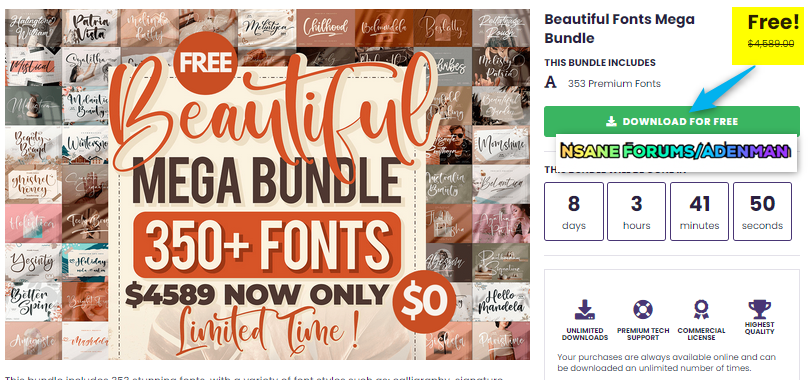
Adenman Posted April 20, 2022 Share Posted April 20, 2022 Beautiful Fonts Mega Bundle – Free Commercial License – 353 Premium Fonts by Perspectype – for Windows / Mac OS X Add perfect handwritten touches to your designs with this bundle full of beautifully designed handwritten fonts that come in a variety of hand-drawn styles from cursive to brush letter. Get Beautiful Fonts Mega Bundle with lifetime commercial license for free! Beautiful Fonts Mega Bundle is the font collection of 353 premium fonts from Perspectype that includes hundreds of glyphs including alternate, ligatures and international language support. , With a variety of styles such as calligraphy, signature, brush lettering and handwriting, you can create beautiful designs with this extensive collection of fonts that includes international language support. This bundle includes 353 stunning fonts, with a variety of font styles such as: calligraphy, signature, brush lettering, handwriting. Included are hundreds of glyphs, including alternate, ligatures, swashes, and international language support. They will be suitable for any type of crafting projects due to their varied style, characteristics and themes. All fonts are compatible with your cutting machine and include a lifetime commercial license. Giveaway link : https://www.creativefabrica.com/product/beautiful-fonts-mega-bundle/ref/3827/ https://www.creativefabrica.com/product/beautiful-fonts-mega-bundle/ https://thesoftware.shop/beautiful-fonts-mega-bundle-discount-sale/ Link to comment Share on other sites More sharing options...